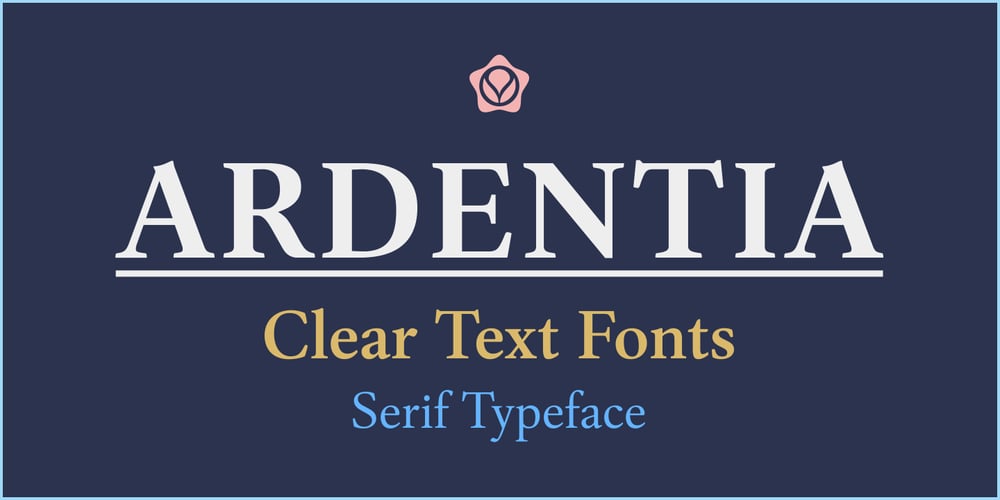
Ardentia Font Family was designed by Sudarmaji and published by Asritype. Ardentia contains 8 styles and family package options. Ardentia is a serif typeface, supporting a wide range of Latin based languages and Greek (see TechSpecs). Ardentia was created inspired by most serif text font used in book printing. Smooth curves help the flow for long text reading. Ardentia is designed with medium contrast in order to have all parts of the letter’s shape well printable in book size printing, for high or low resolution printers, high or low paper quality. Other than book printing, the medium contrast also gives good visibility in display thanks to its clearness. Thus, Ardentia will work well for both printing and display, webpage or electronic/digital display. Ardentia consist of 4 weights: Light, Regular, Semi-bold and Bold, plus matching italics. The thickness of the lowercases (vertical stem) of the regular font is drawn at about the middle of the thickness of similar kind (serif) and similar size fonts. So Ardentia is the right choice for both textbook and display altogether. Being a normal serif typeface, Ardentia is applicable to a wide range of usage. From book typing, news, magazines notes, cards, sticker texts, banners, to logos and the others design mean. Enjoy using Ardentia for your projects.